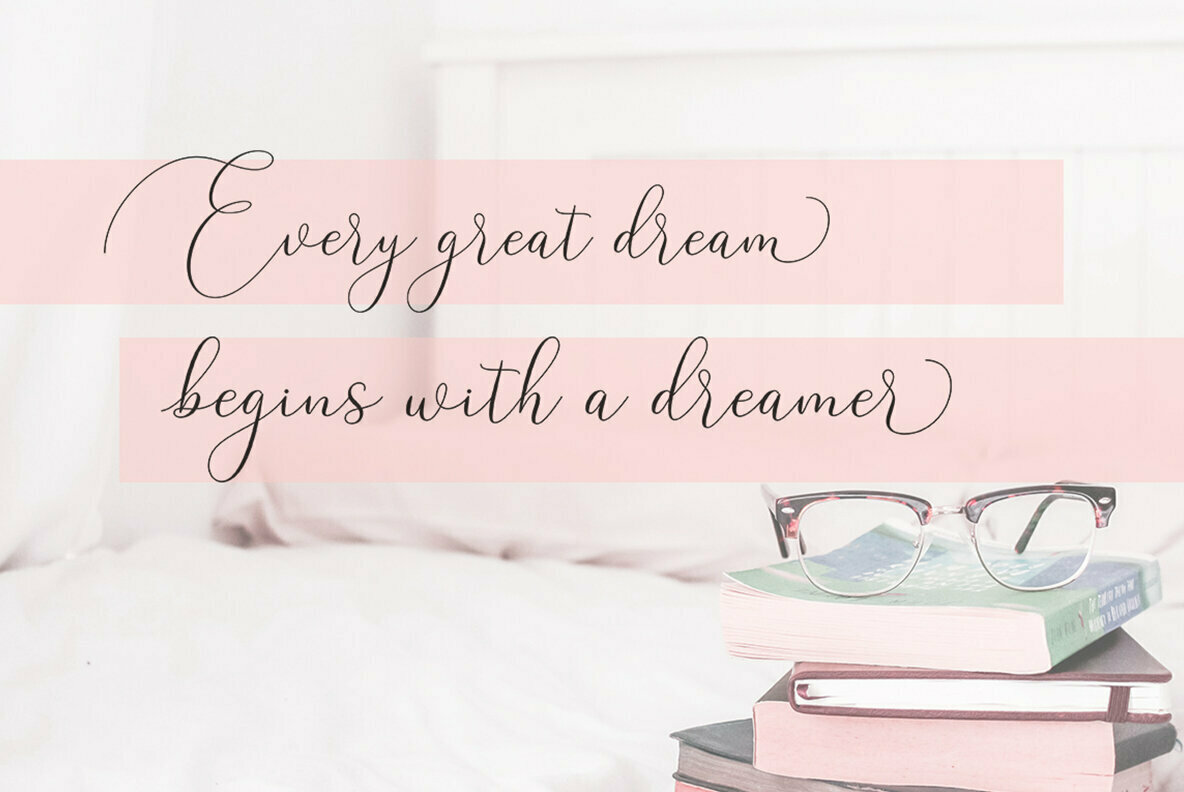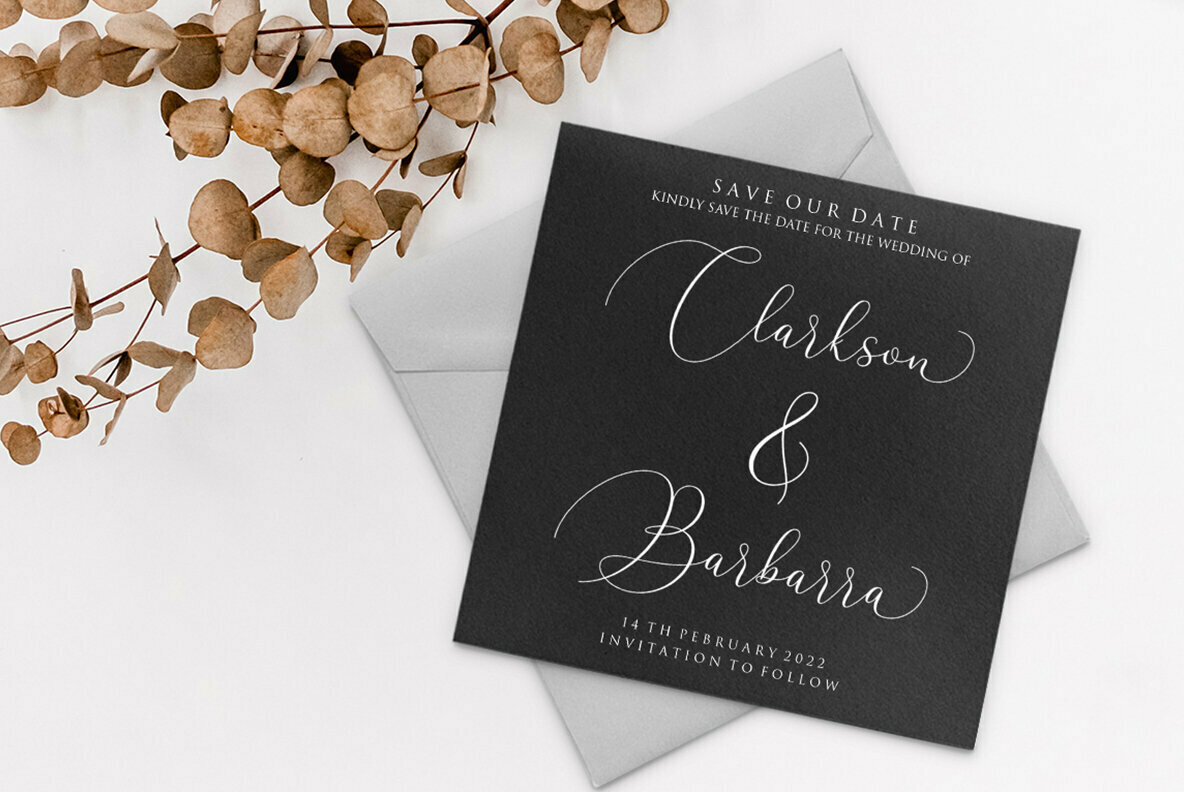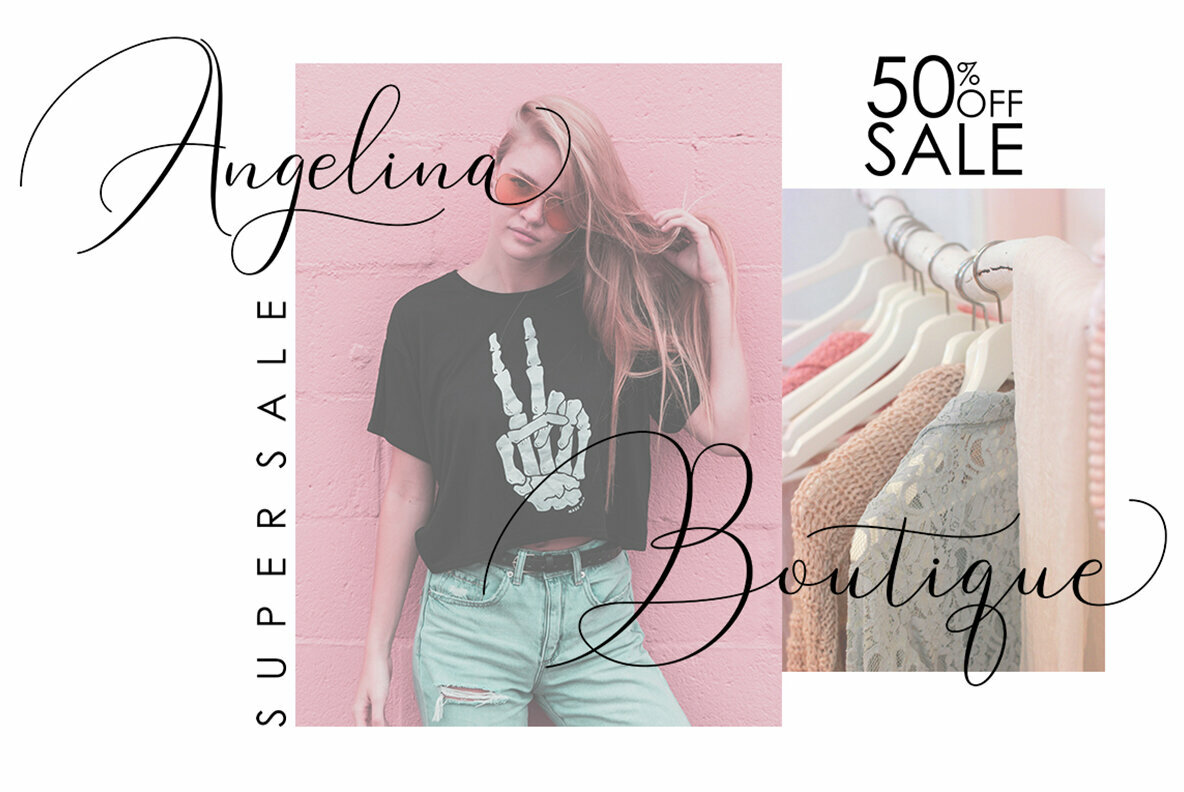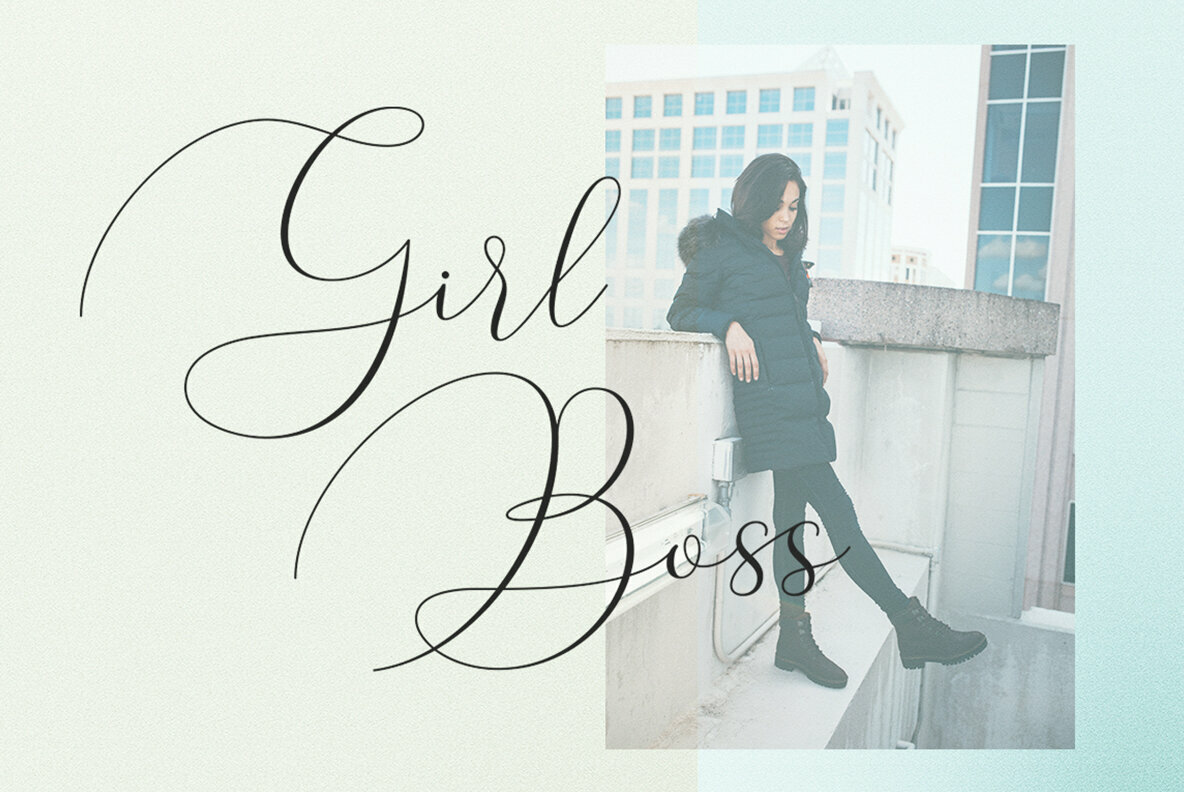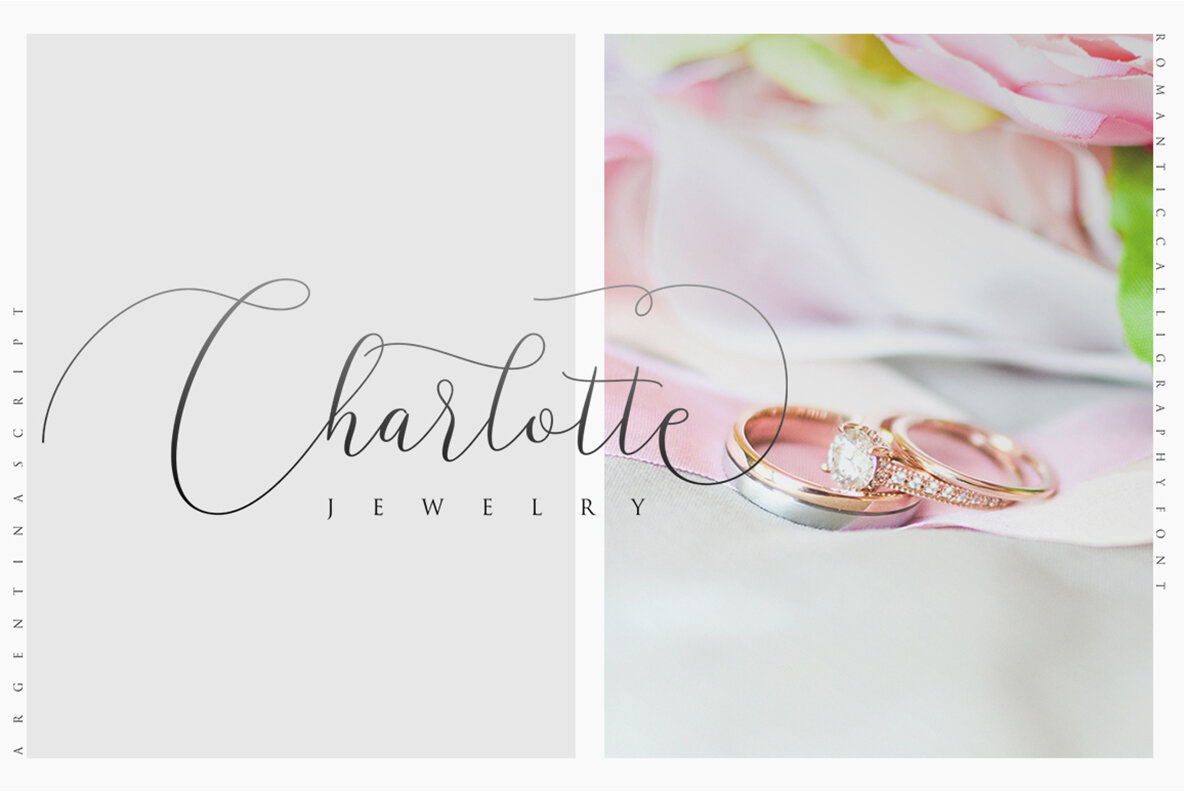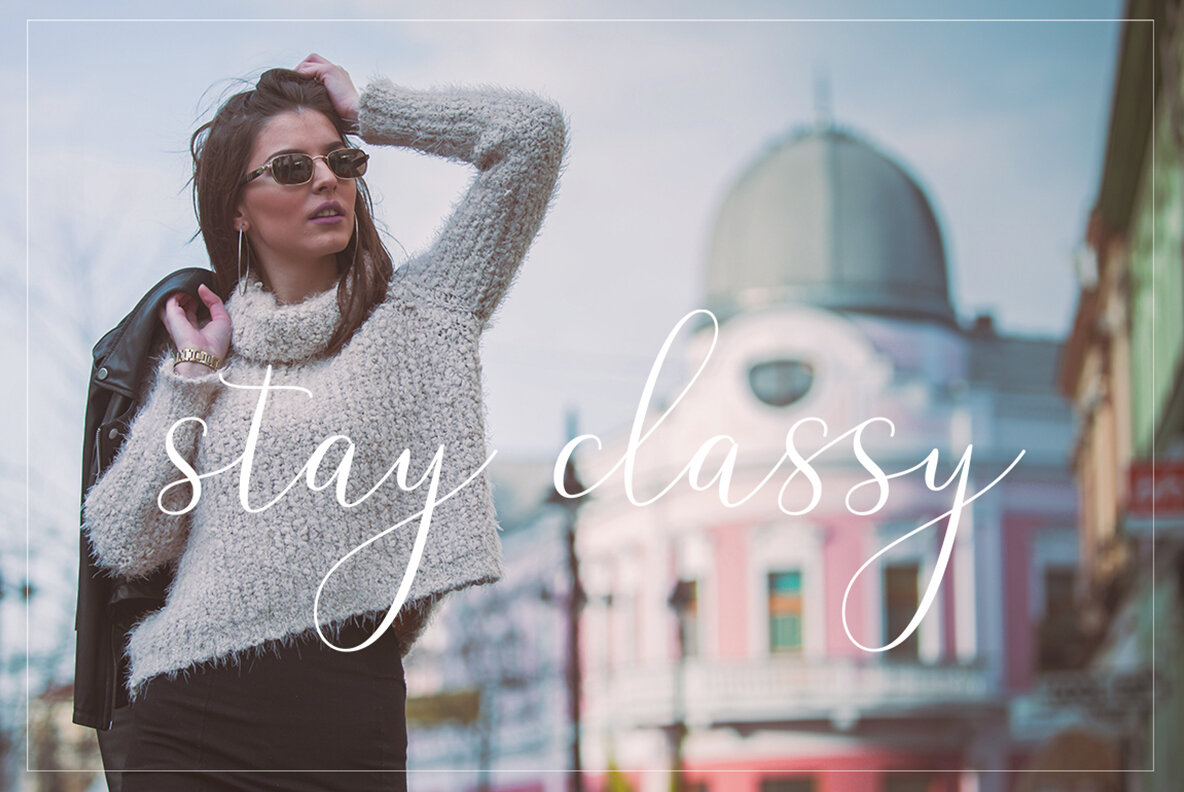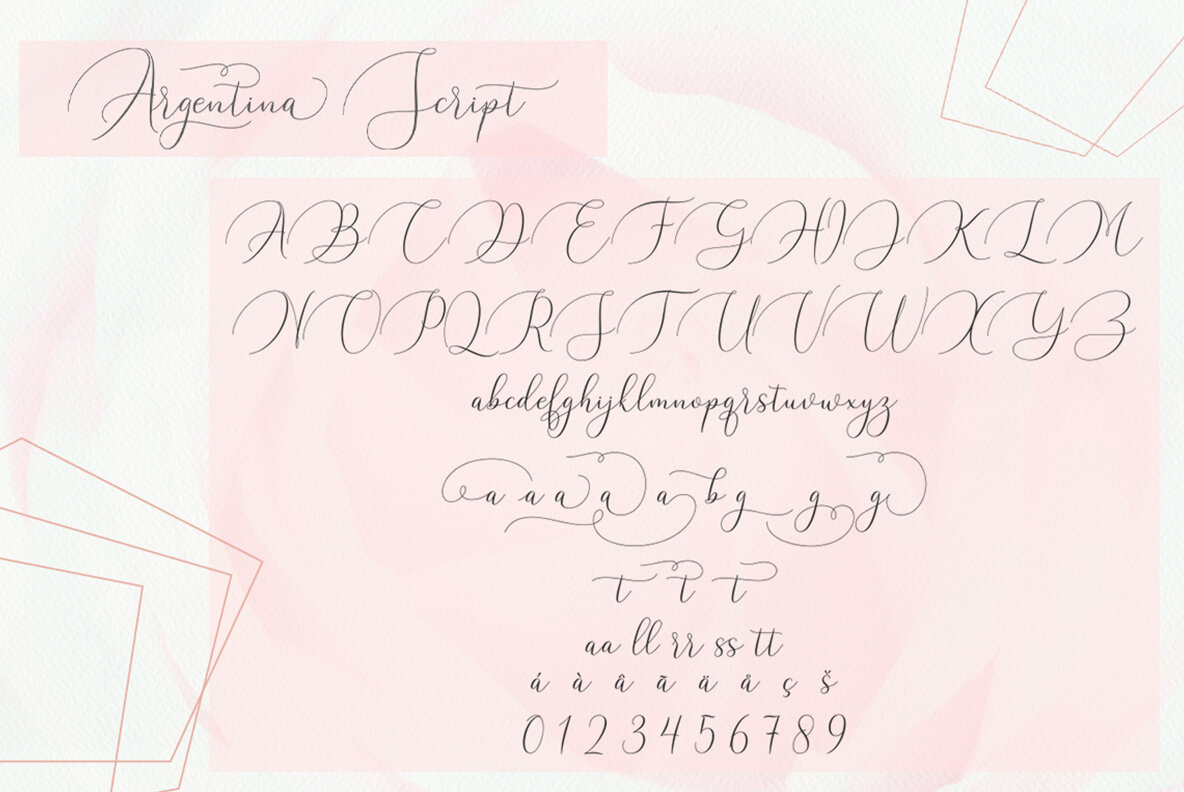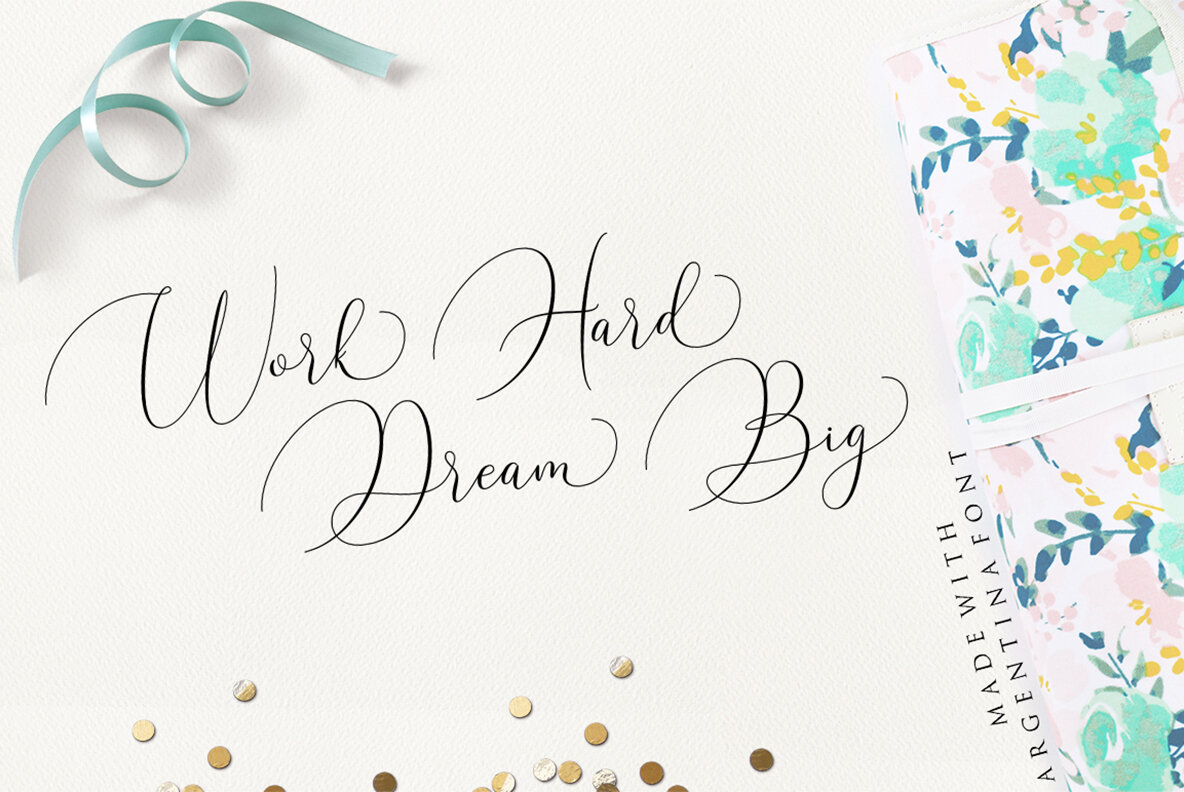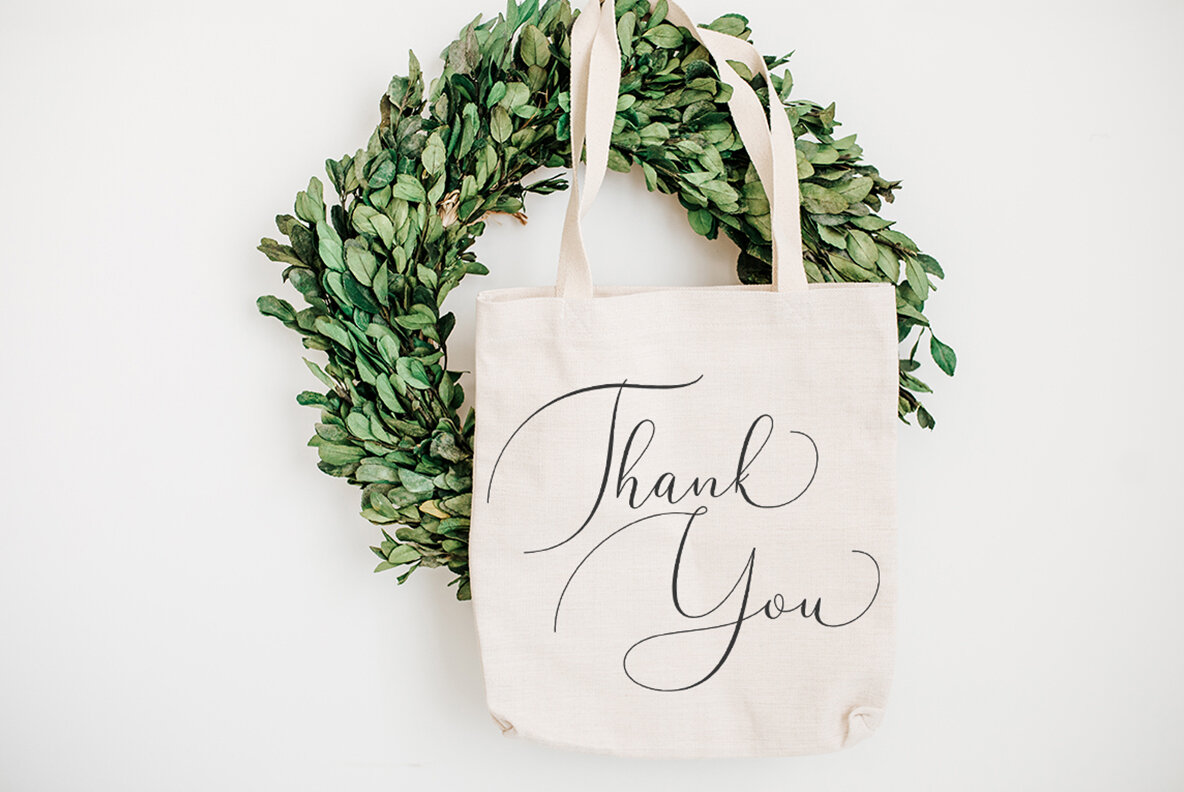
Argentina Script Font
Argentina Script
The Argentina Script carries a sense of romance and sophistication, perfect for those seeking a touch of elegance in their typography. With its varying baselines and smooth lines, this classic calligraphy font is versatile enough to adorn numerous projects, such as headings, signatures, logos, and wedding invitations. Whether you are designing t-shirts, letterheads, signage, labels, news spreads, posters, or badges, Argentina Script provides a timeless aesthetic. To take full advantage of the Argentina Script's stylistic alternates, ensure compatibility with software supporting OpenType features such as Adobe Illustrator CS, Adobe InDesign, CorelDraw X6-X7, or Microsoft Word 2010 and later versions. For exploring alternative characters, you may utilize the Windows Character Map, Font Book on Mac, or programs like PopChar. Elevate your designs with Argentina Script's poetic forms and embrace the art of calligraphy.Argentina Script: Romantic Calligraphy with Elegance